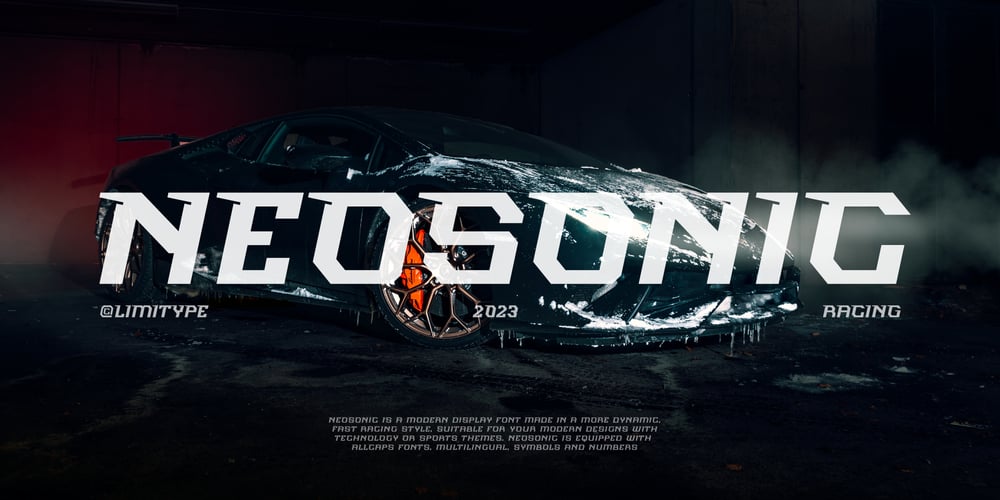
Neosonic Font Family was designed by Muhammad Muammar and published by limitype. Neosonic contains 1 styles and family package options. Neosonic is a modern display font made in a more dynamic, fast racing style, suitable for your modern designs with technology or sports themes.Neosonic comes complete with :- Allcaps Font- Multilingual – Number & Symbols